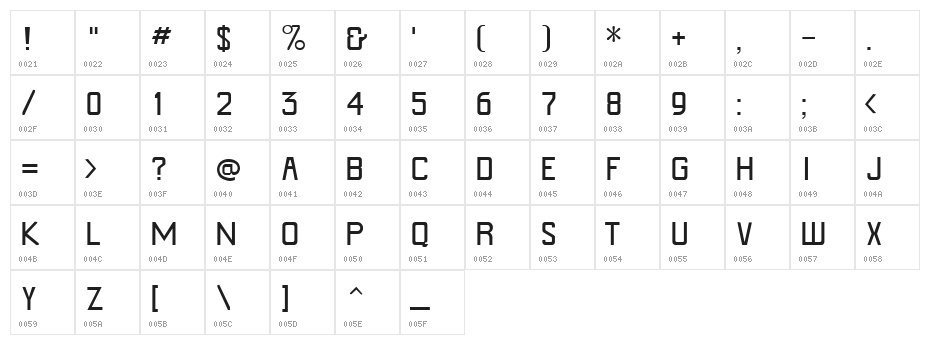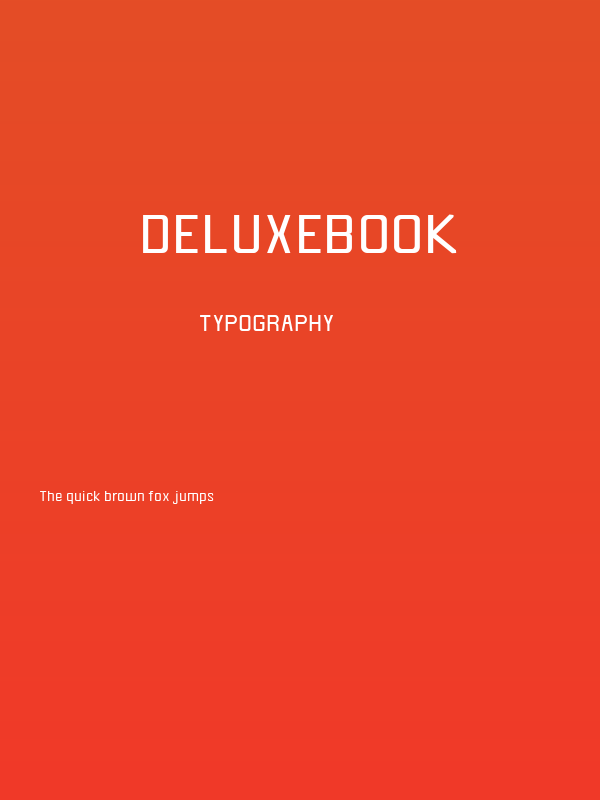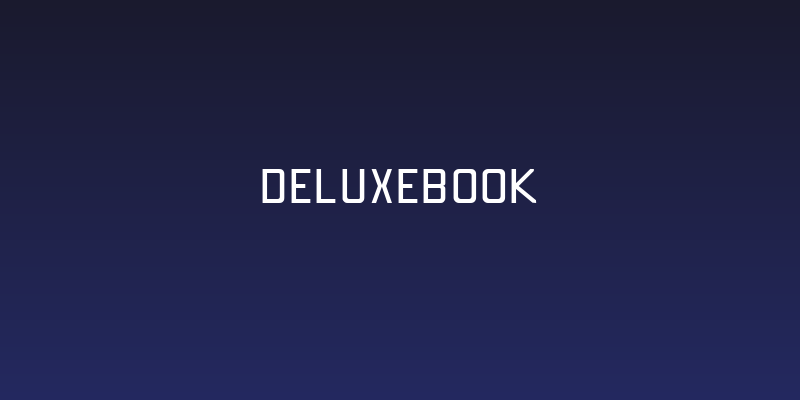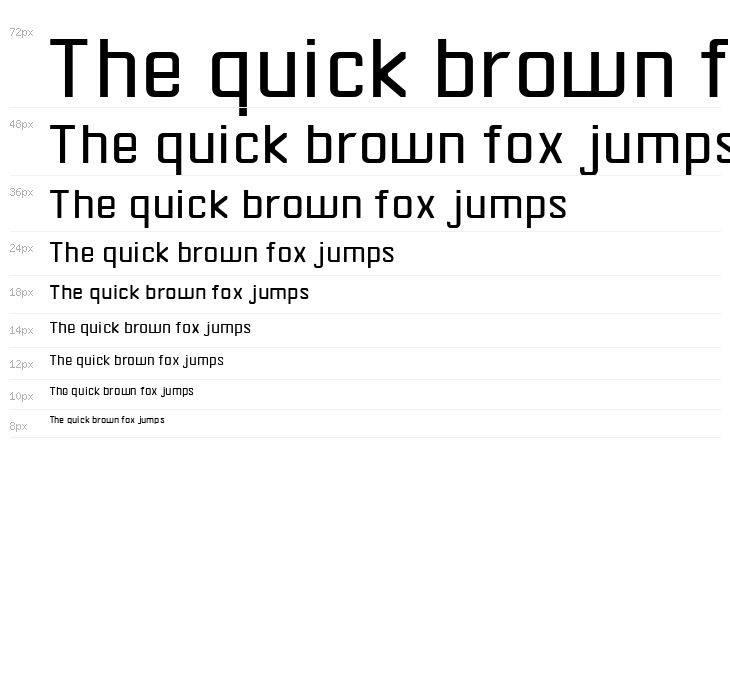
DeluxeBook Font
DeluxeBook Description
This font features a modern, geometric design with clean lines and a structured appearance. The uppercase letters are uniform in height, while the lowercase letters maintain a consistent baseline, offering a harmonious look. The numerals are distinct and easy to read, complementing the overall style. Special characters are well-integrated, maintaining the font's sleek and contemporary aesthetic. The font's design is versatile, suitable for various applications where clarity and modernity are desired.
| Proposed Projects | Ideal for branding, digital interfaces, signage, and editorial design where a modern and clean look is essential. |